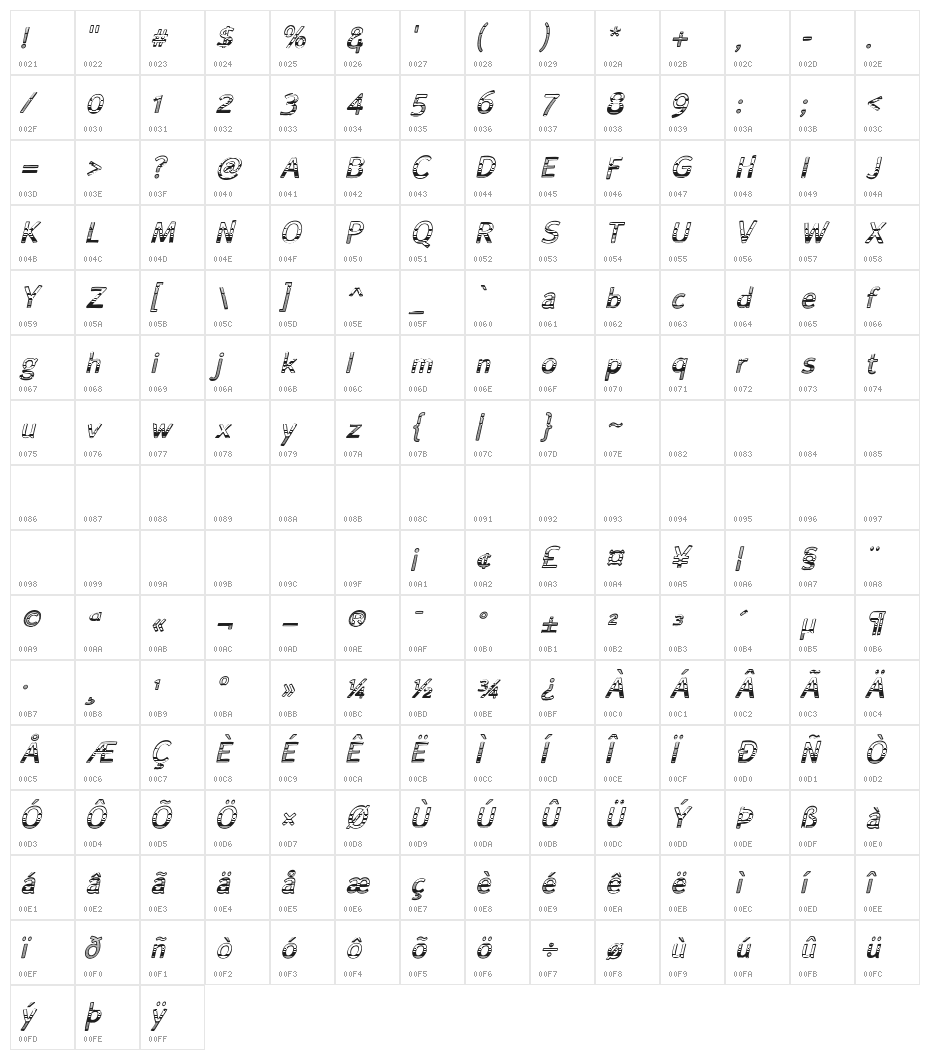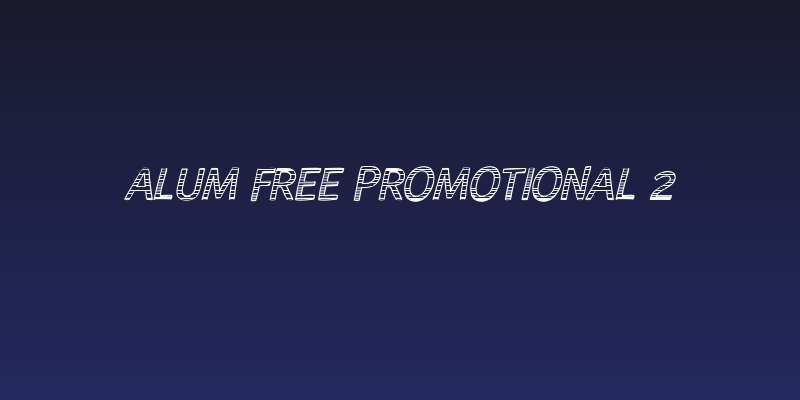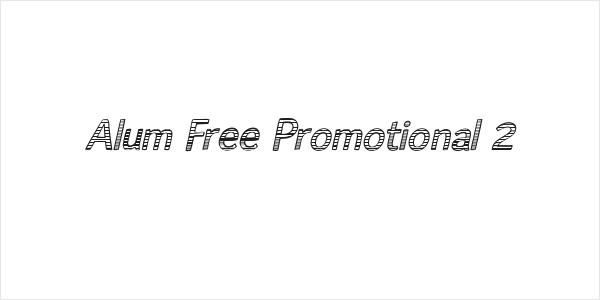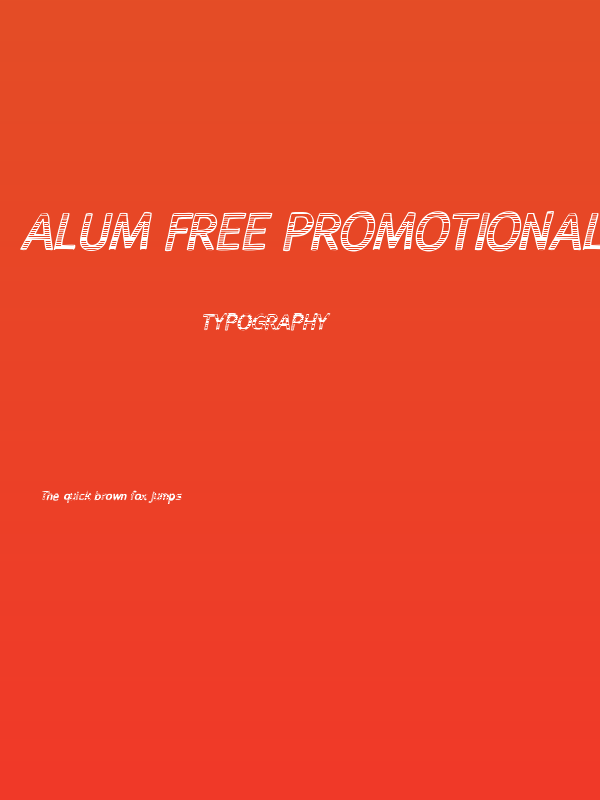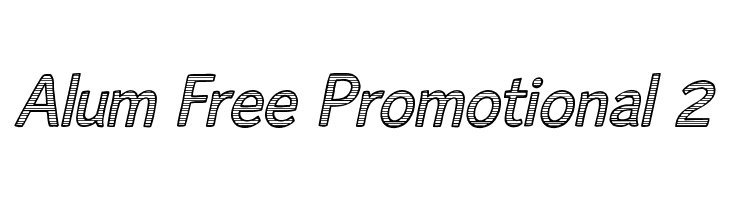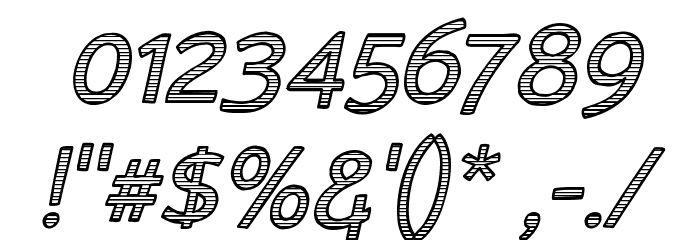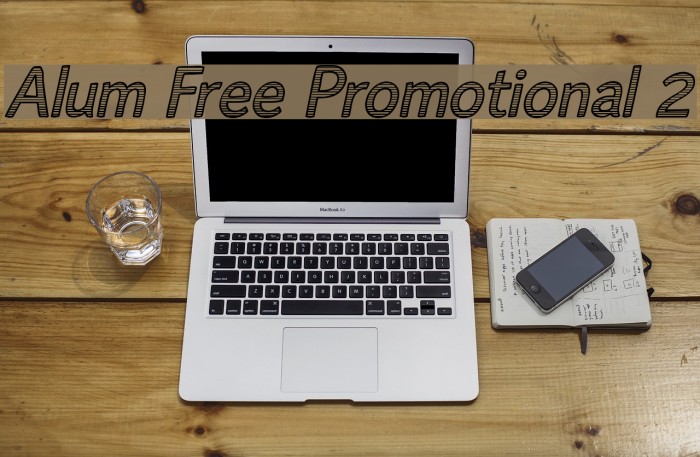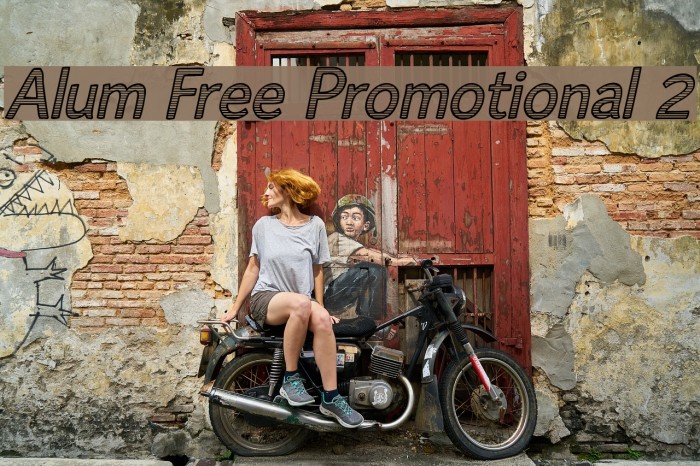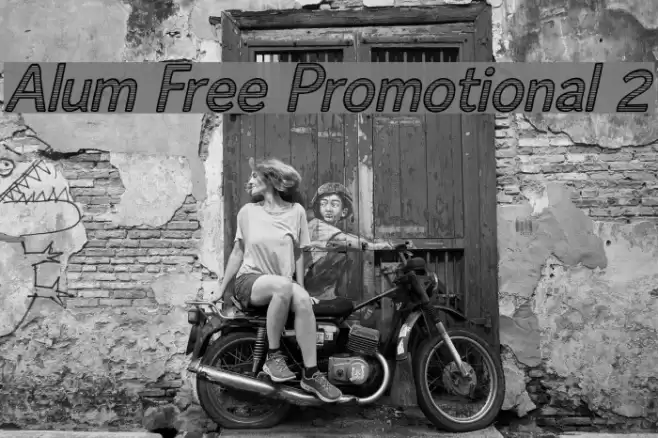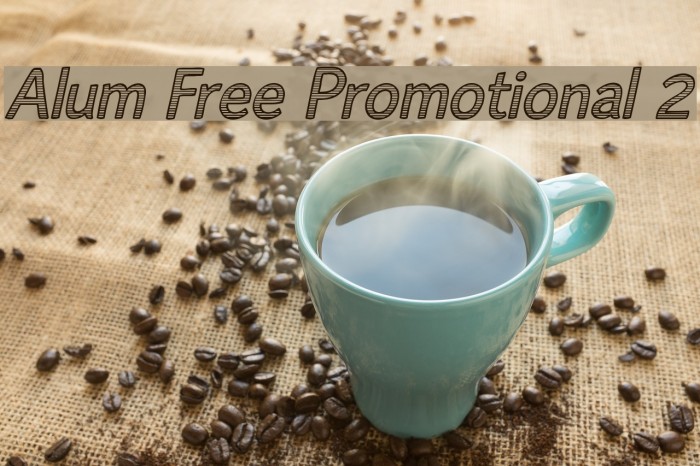
Alum Free Promotional 2 Font
Alum Free Promotional 2 Description
This font features a unique, decorative style with a striped pattern running through each character, giving it a dynamic and textured appearance. The uppercase and lowercase letters maintain a consistent slant, adding a sense of motion and energy. The numerals and special characters are designed with the same striped effect, ensuring uniformity across all glyphs. The font's playful and bold design makes it stand out, making it ideal for creative and eye-catching projects. Its distinct style is both modern and artistic, suitable for a variety of design needs.
| Proposed Projects | Ideal for posters, branding, headlines, and creative design projects. |